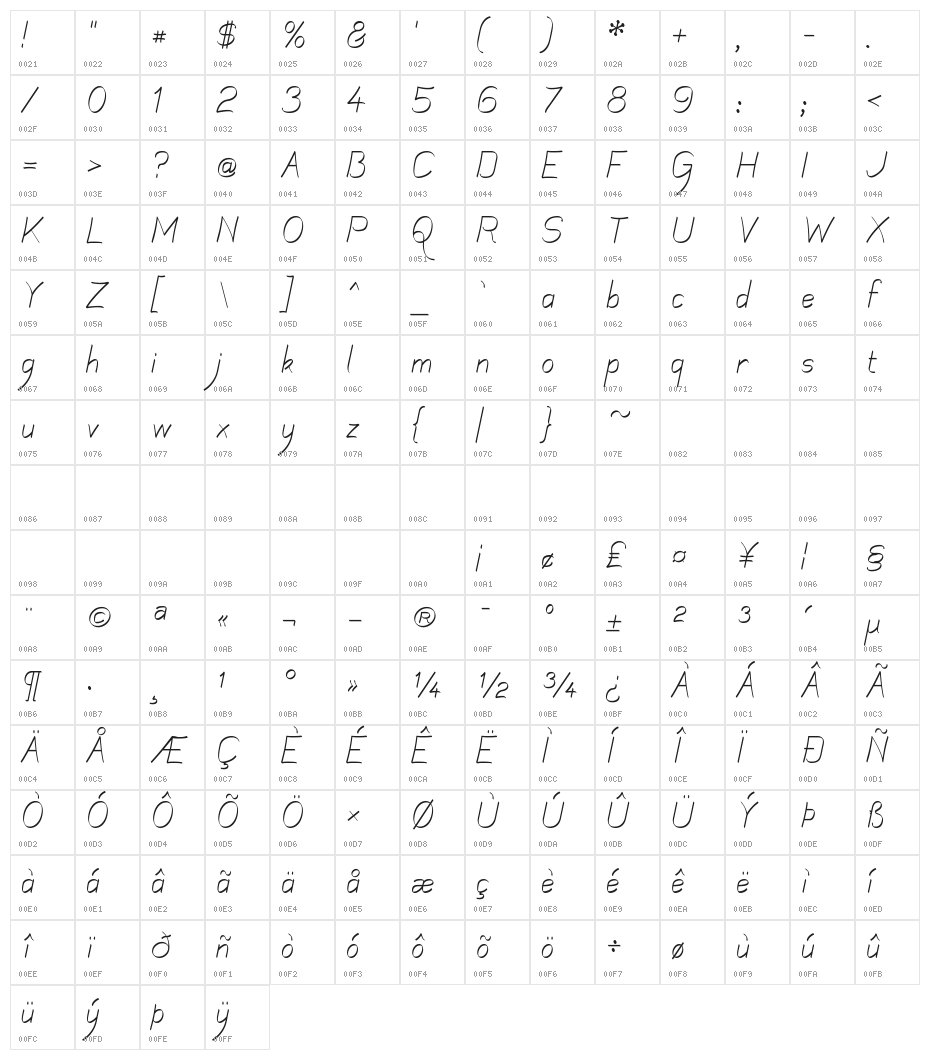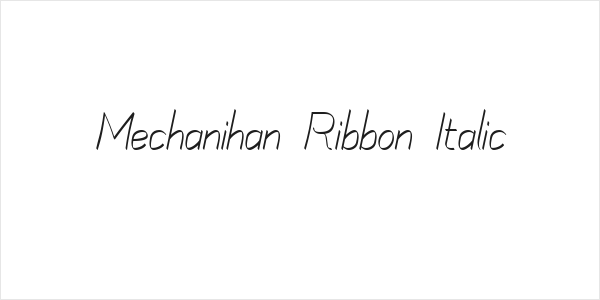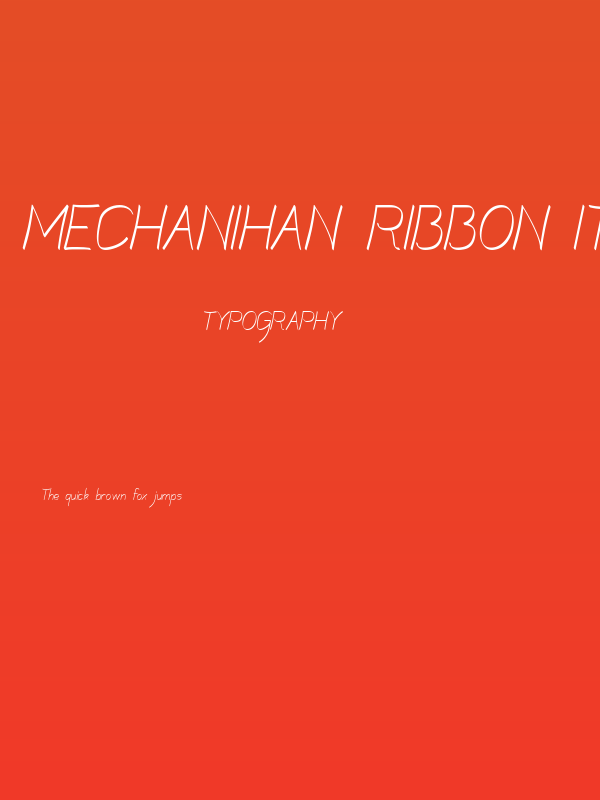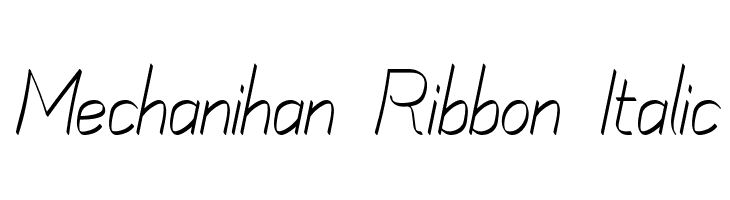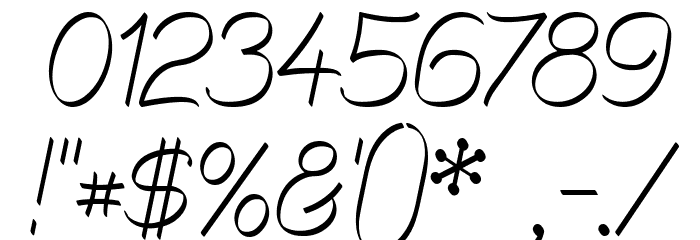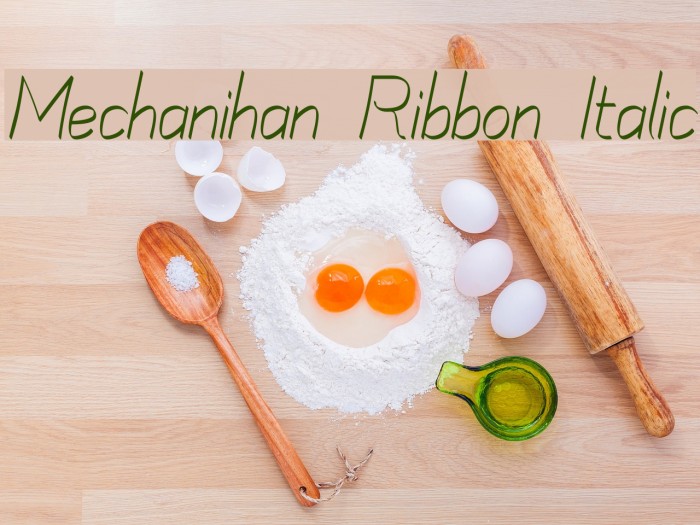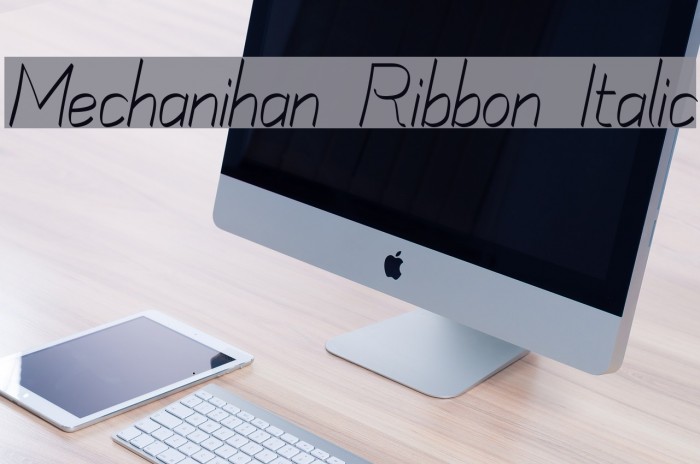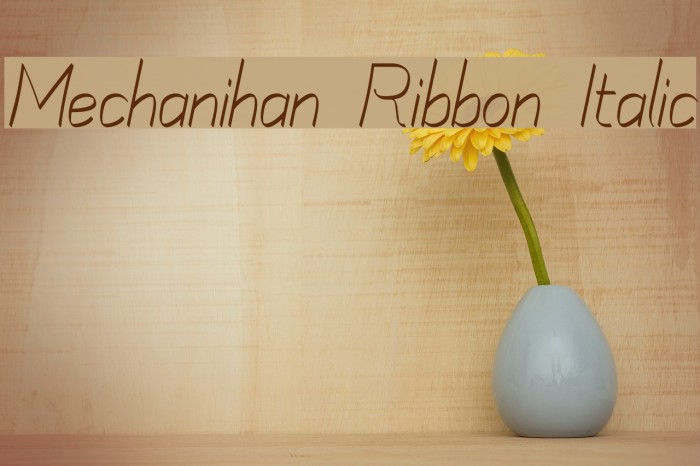
Mechanihan Ribbon Italic Font
Mechanihan Ribbon Italic Description
This font features a dynamic and flowing style, characterized by its italicized, ribbon-like appearance. The letters are elegantly slanted, giving a sense of movement and fluidity. The uppercase letters are tall and slender, while the lowercase letters maintain a consistent flow with subtle curves. The numbers are distinct and maintain the same slanted style, ensuring readability. Special characters are creatively integrated, maintaining the overall aesthetic. This font's unique style makes it suitable for creative and artistic projects, where a touch of elegance and modernity is desired.